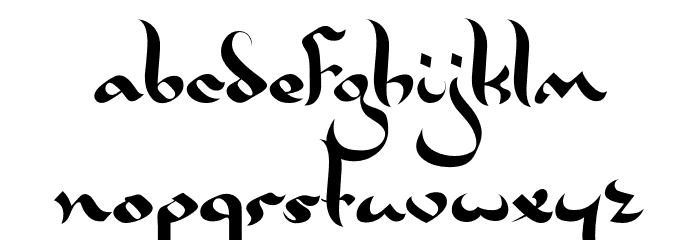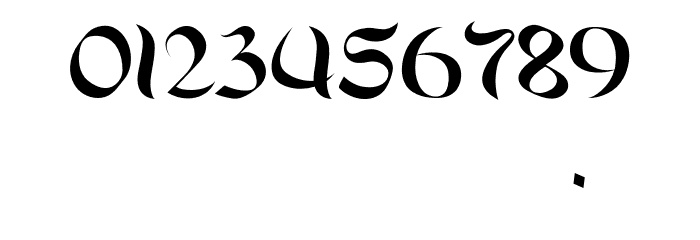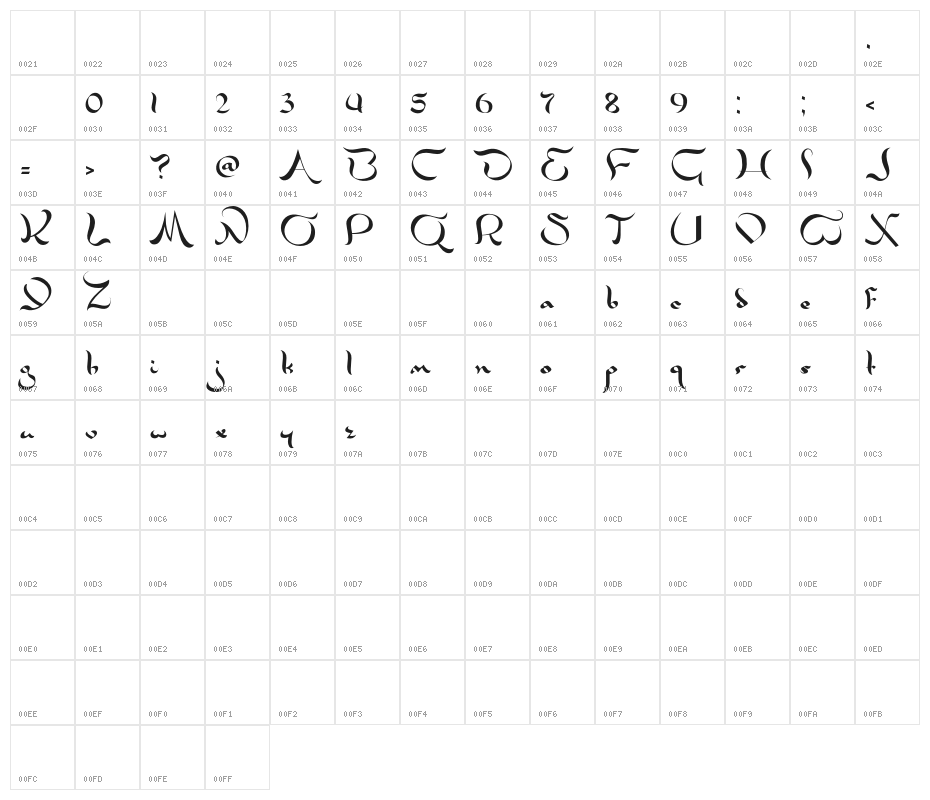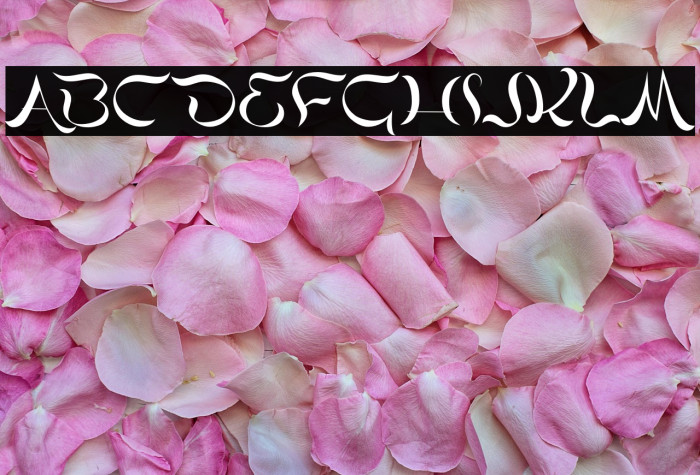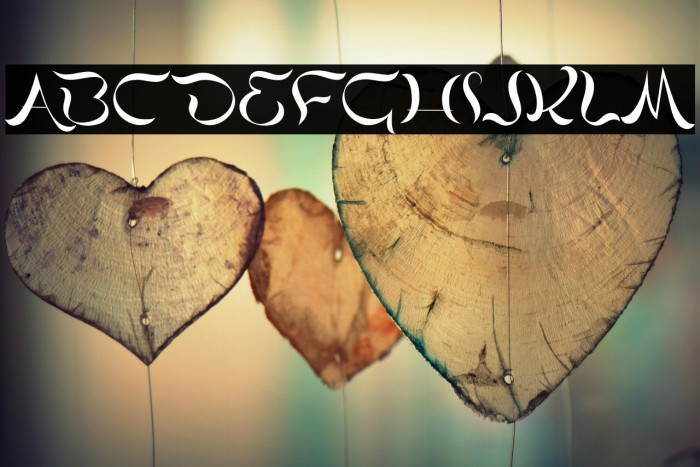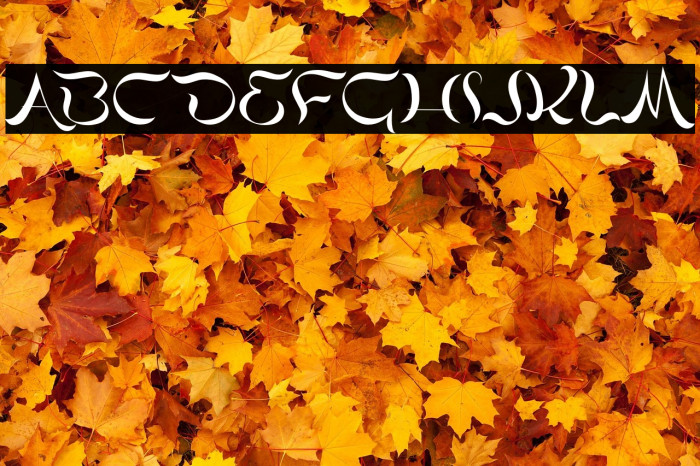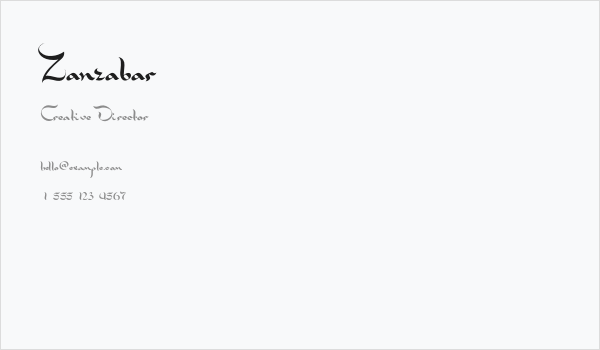
Zanzabar Font
This font features a unique and artistic design with a calligraphic flair. The characters exhibit a flowing, cursive style with elegant curves and sharp edges, creating a dynamic and visually striking appearance. The uppercase letters are bold and prominent, while the lowercase letters maintain a consistent fluidity. Numbers are designed with the same artistic touch, ensuring a cohesive look across all characters. The special characters complement the overall style, adding versatility to the font's usage. This font is ideal for projects that require a touch of sophistication and creativity.
An artistic, calligraphic font with elegant curves and sharp edges.
- Font: Zanzabar
- Proposed Projects: Ideal for invitations, branding, logos, and artistic posters.
- Category: Script
- Use Case: Logos, Headlines, Artistic projects